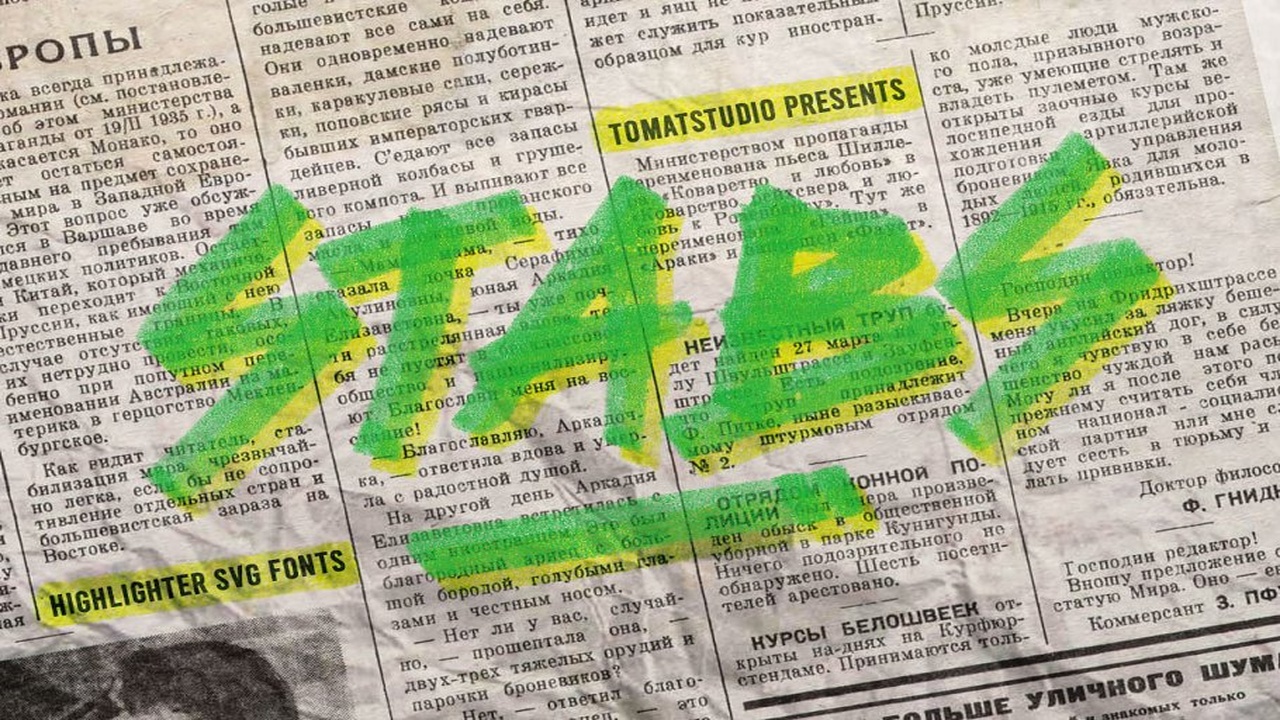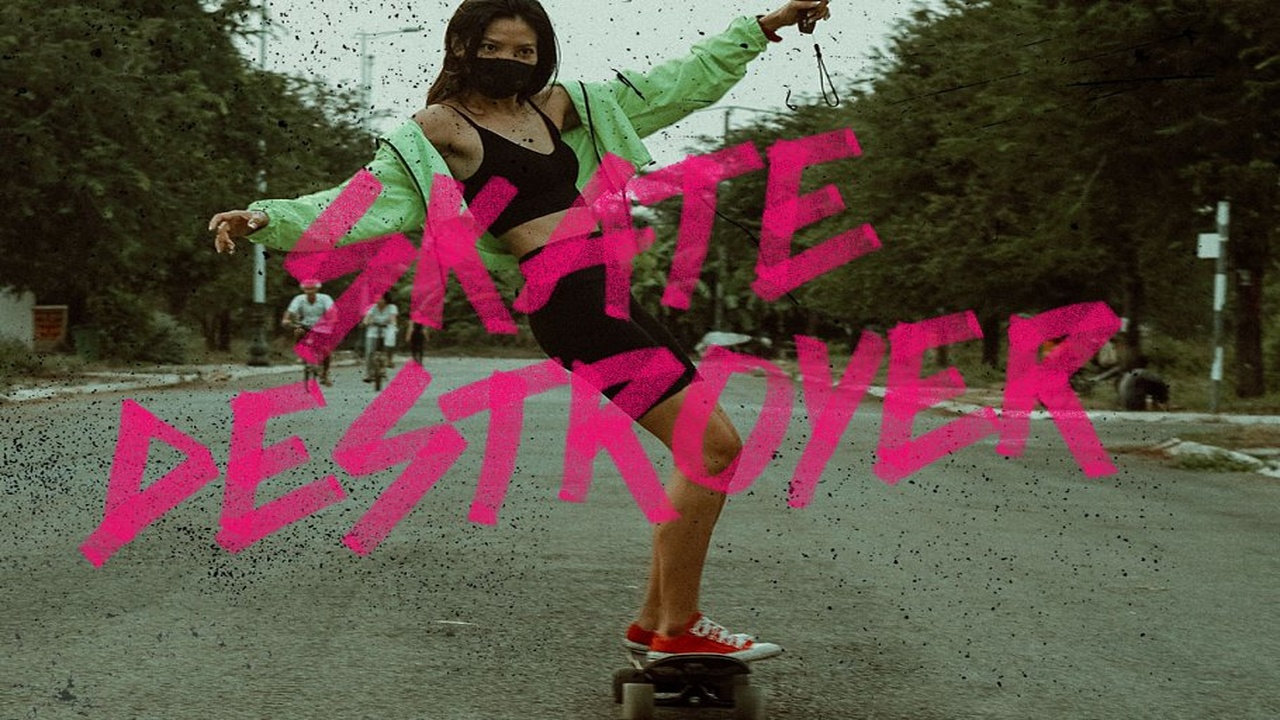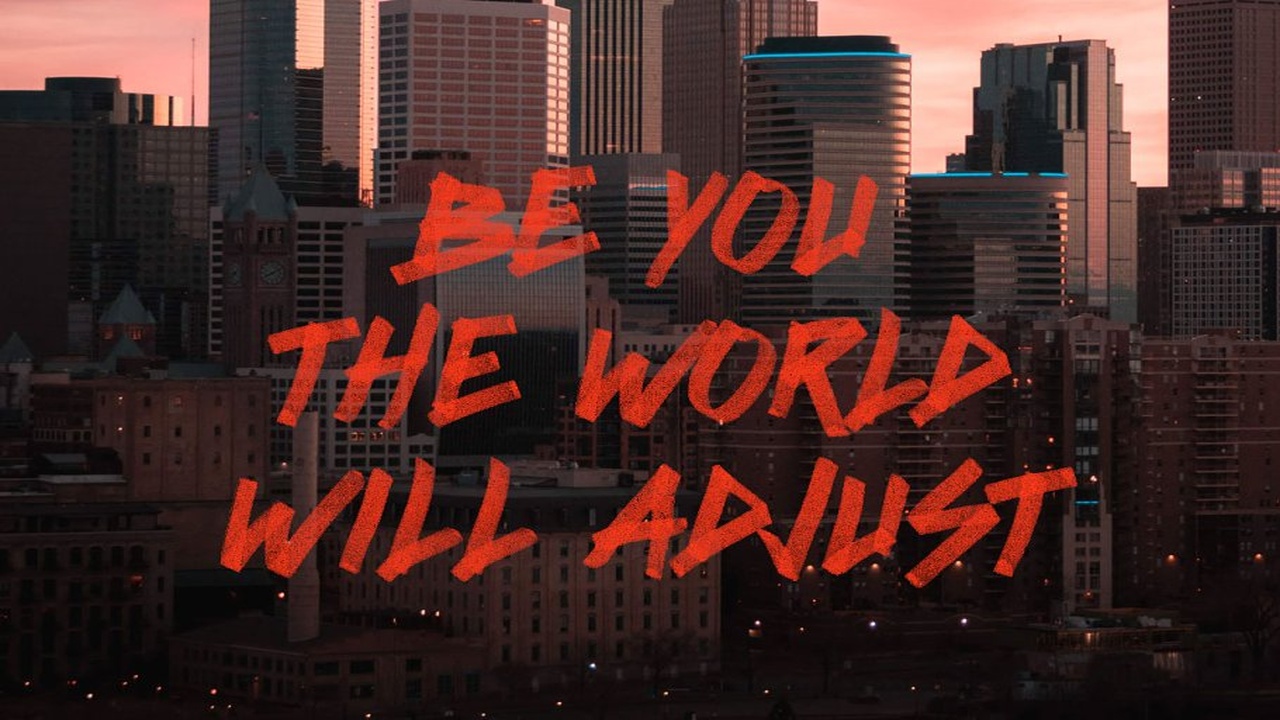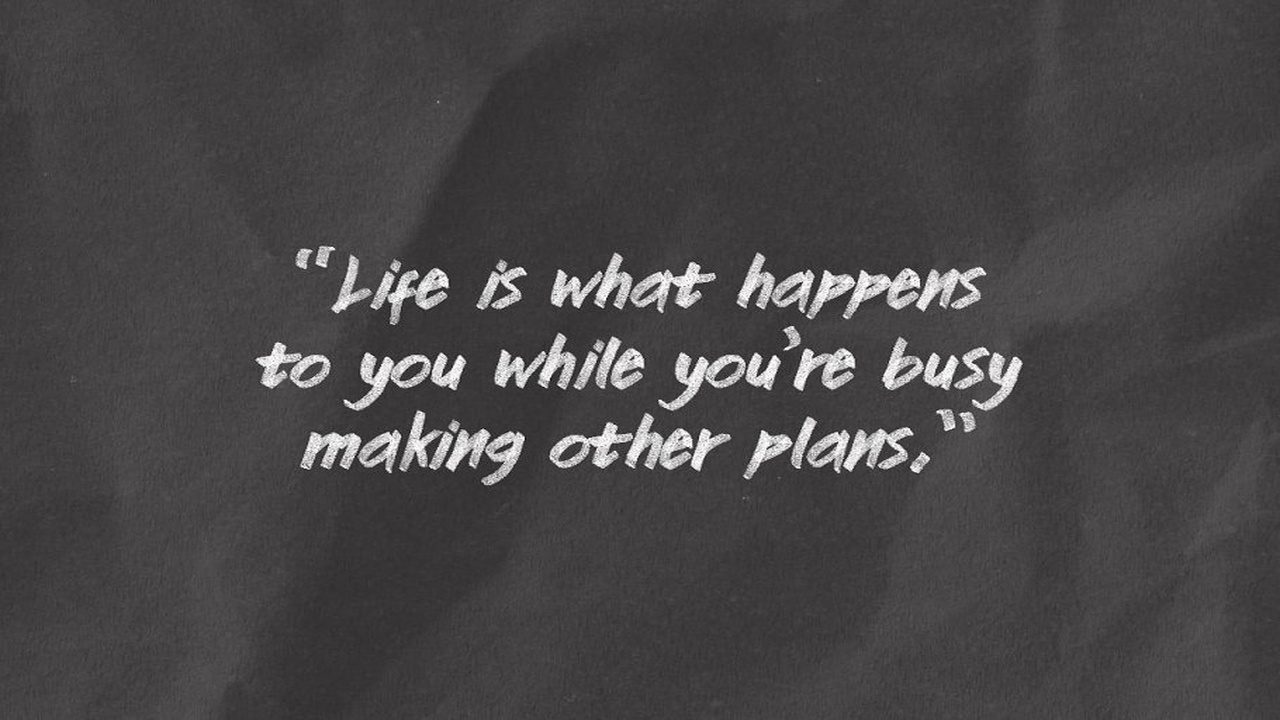
About the Stabs Highlighter SVG Font
Create stunning design with our SVG highlighter effect Fonts, the highlighter effect is very unique, the trademark color is vibrant and the texture also transparent, you only can achieve it with SVG fonts format, but don’t worry we also give you the regular format, Stabs highlighter SVG typeface is created using real highlighter marker on the drawing book paper, so it’s original and super realistic